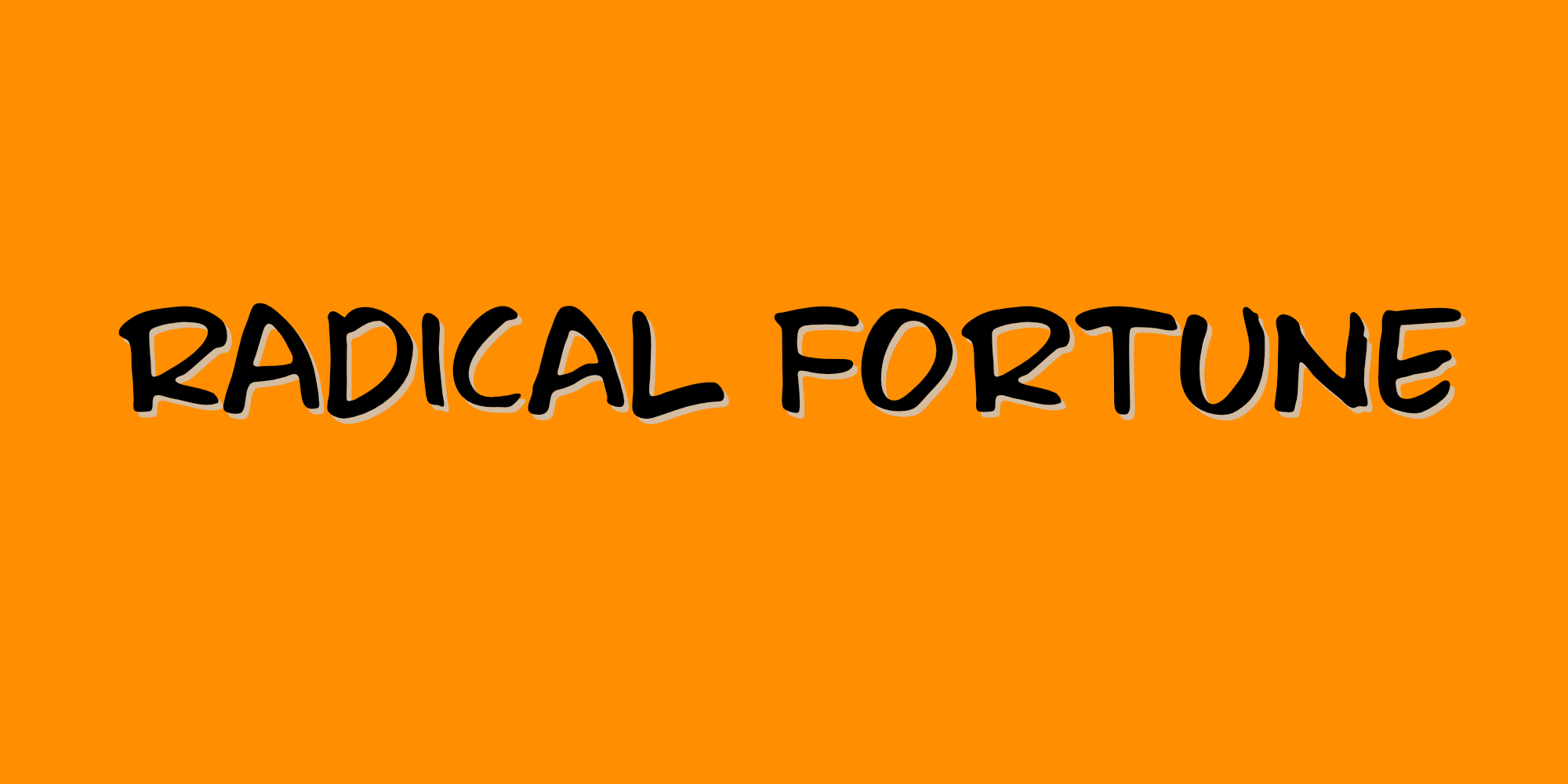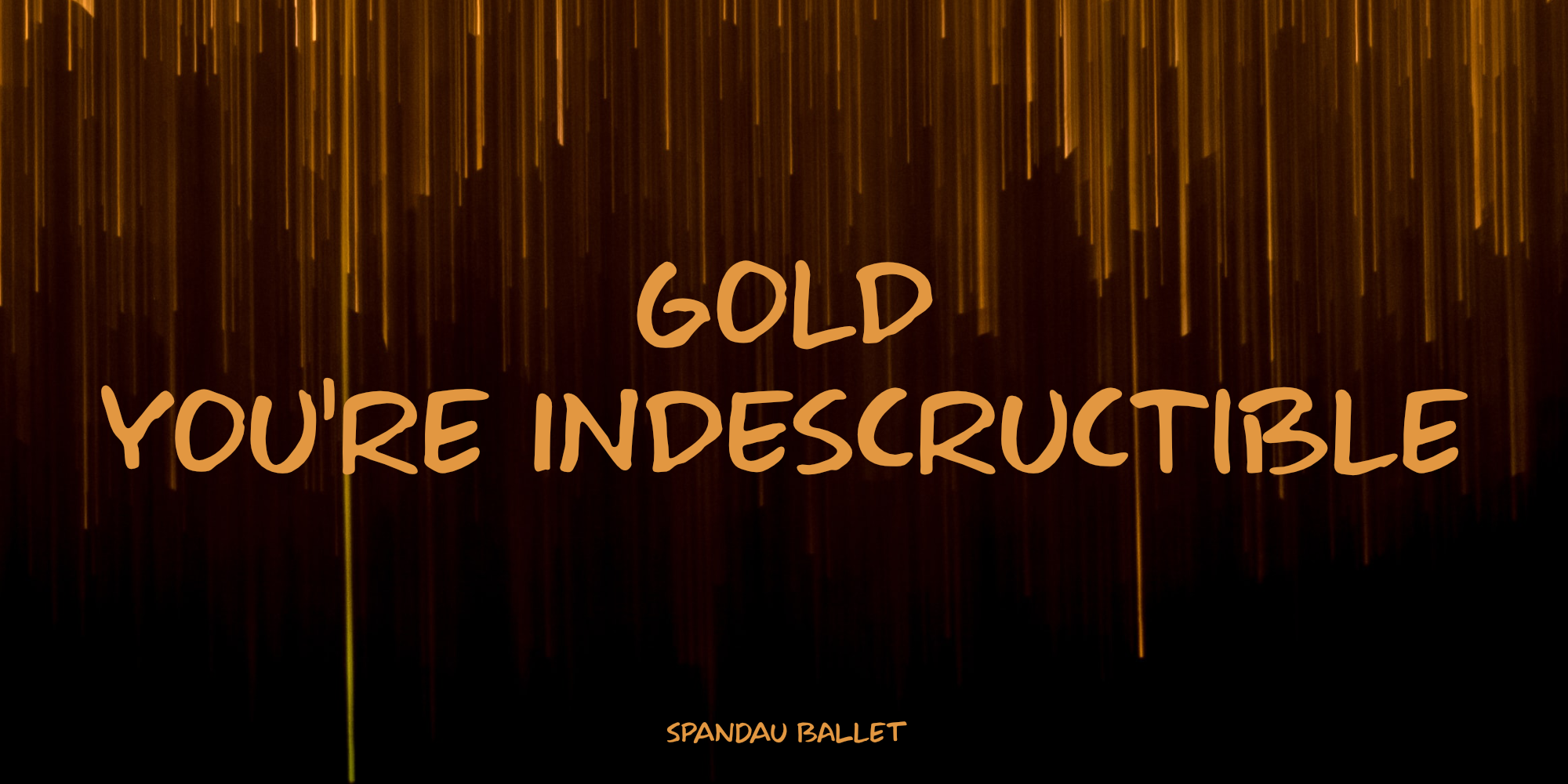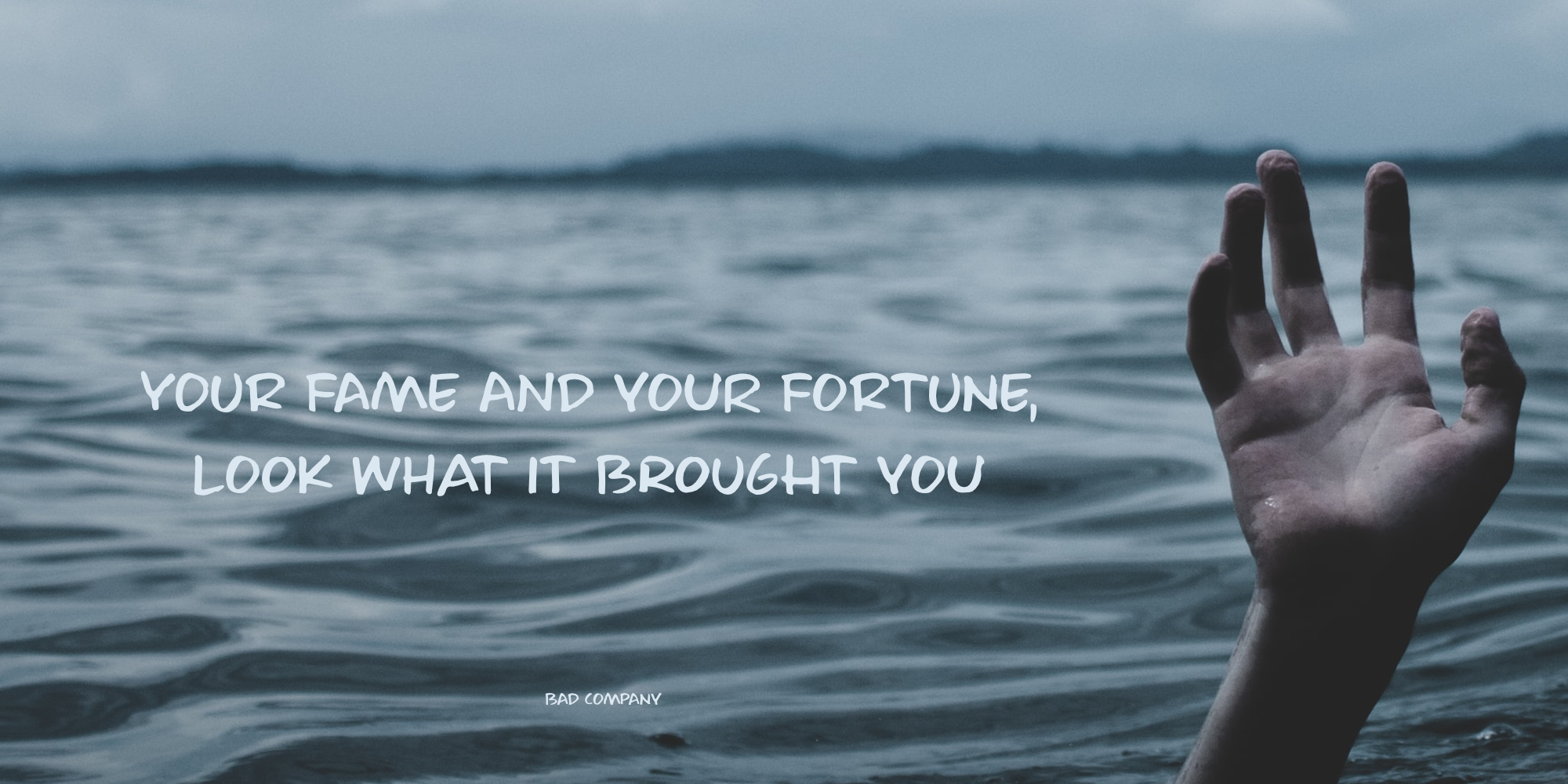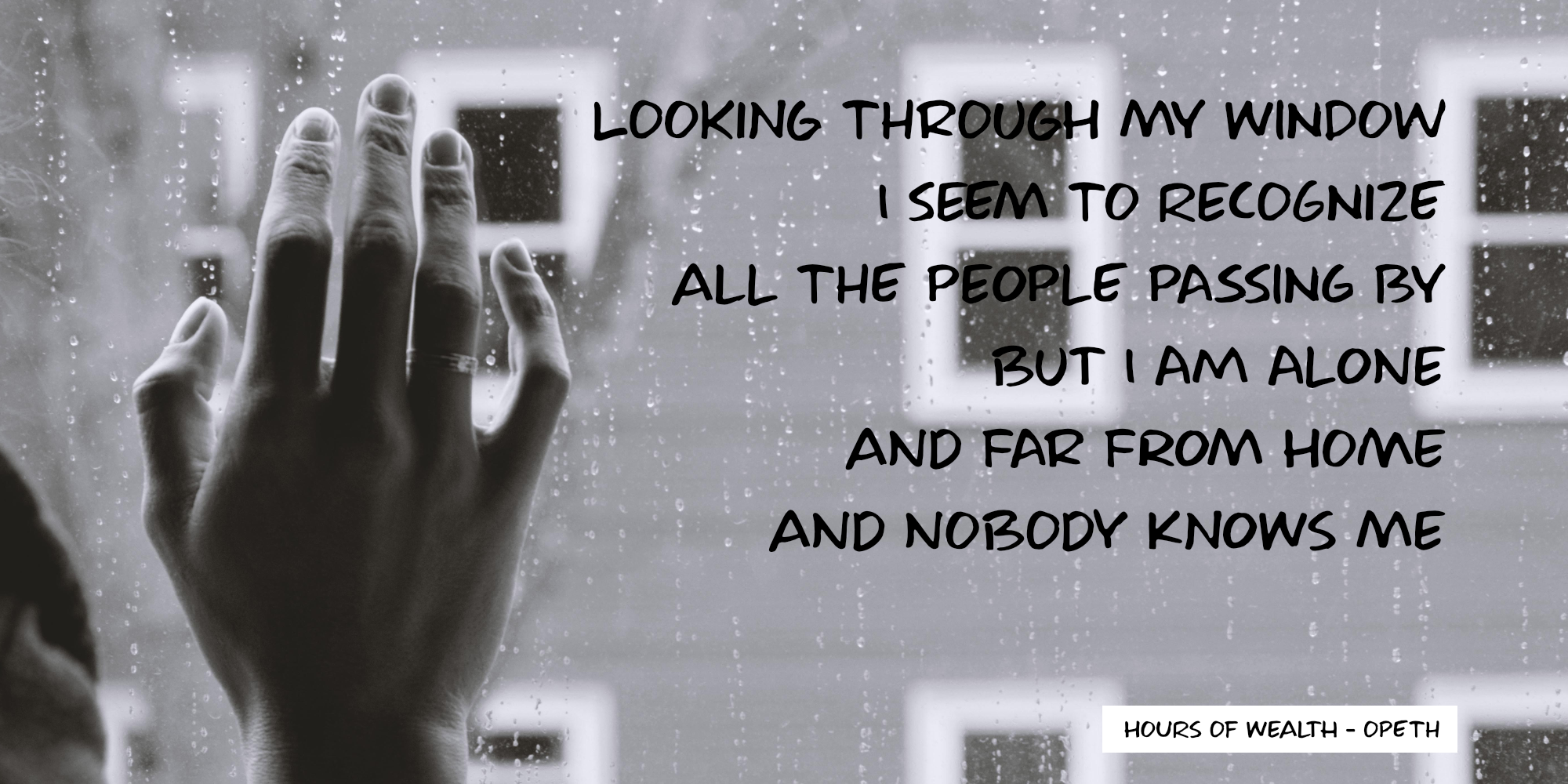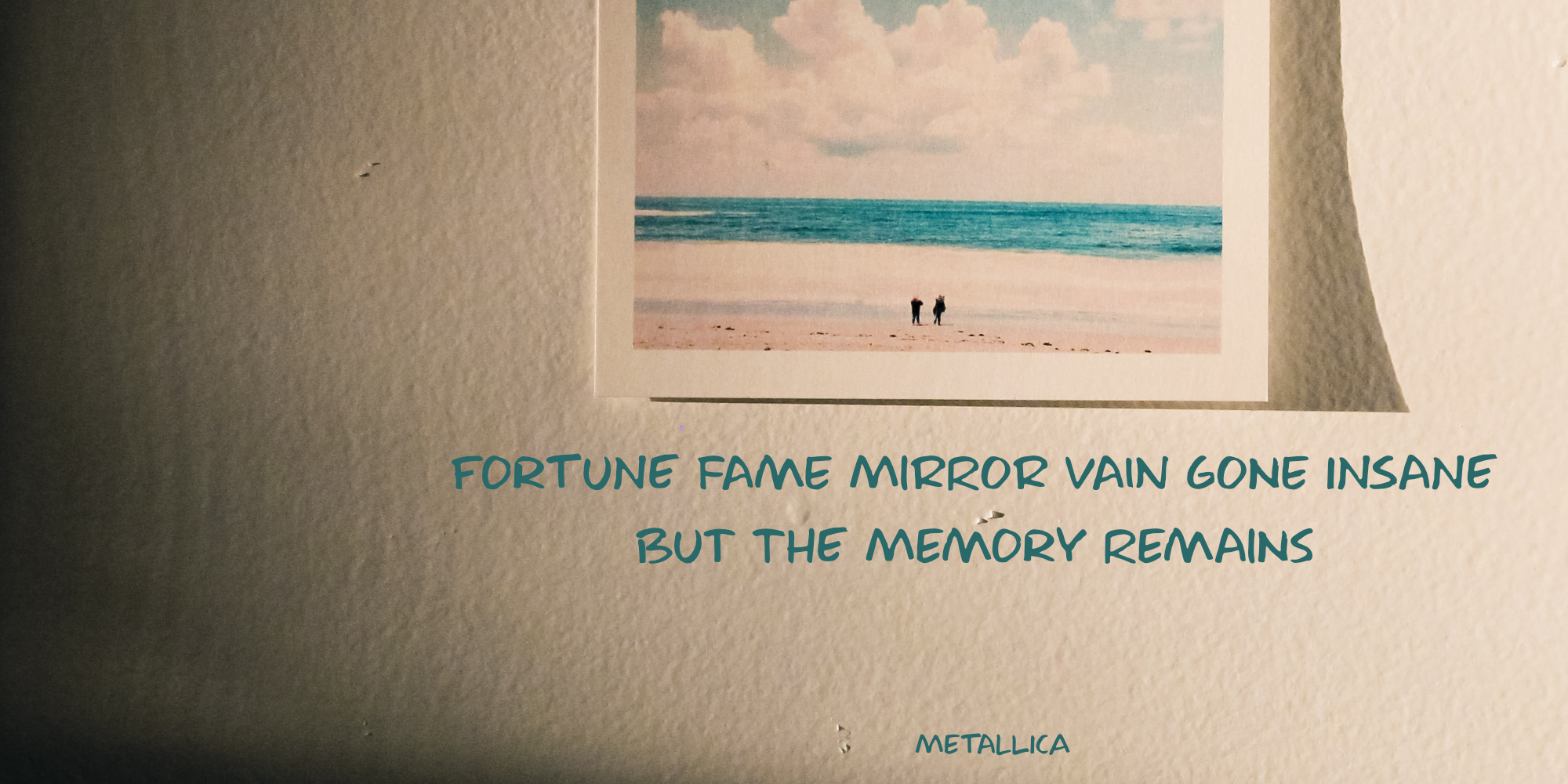
Radical Fortune is a font I made after a period in my life that could have ended with a really nice sum of money in my hands - but which I didn’t take. I had to give up too much of myself and that just didn’t feel right. I made Radical Fortune to keep me from thinking too much - and, symbolically, I used a really old and cheap marker pen to draw out the glyphs!